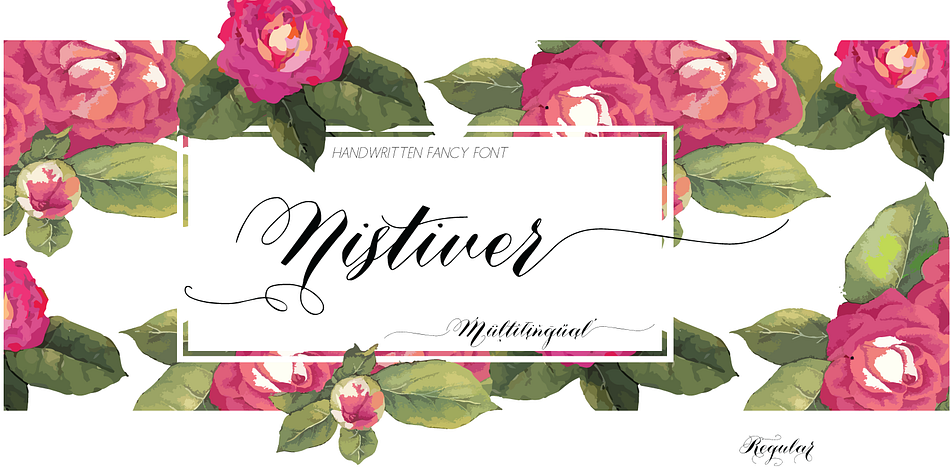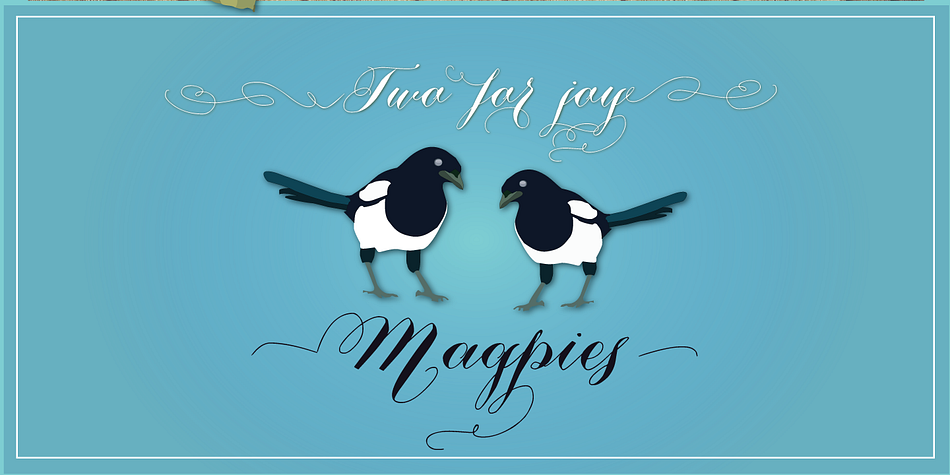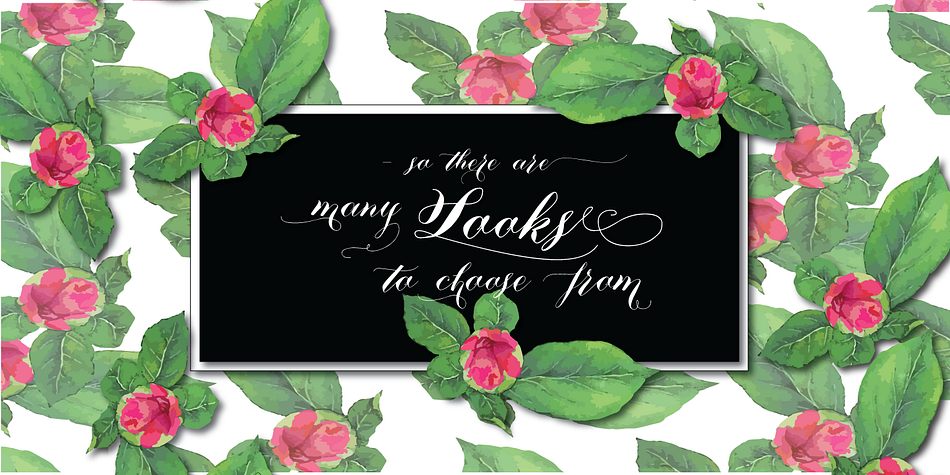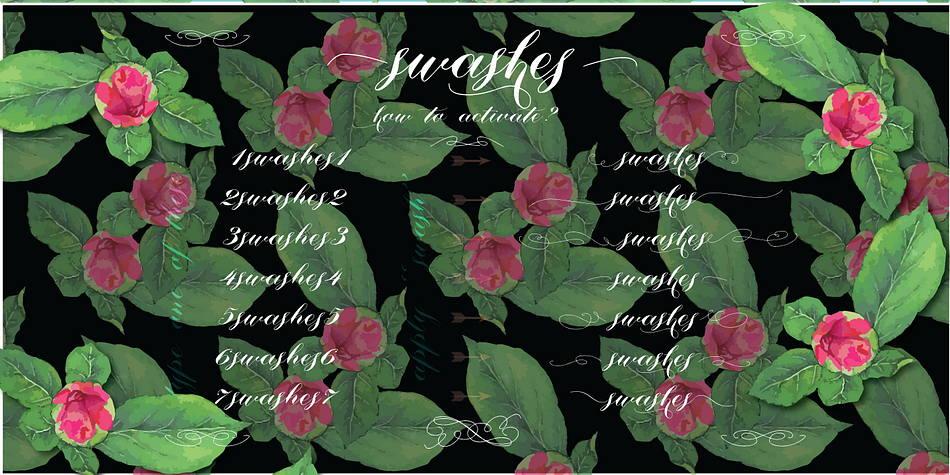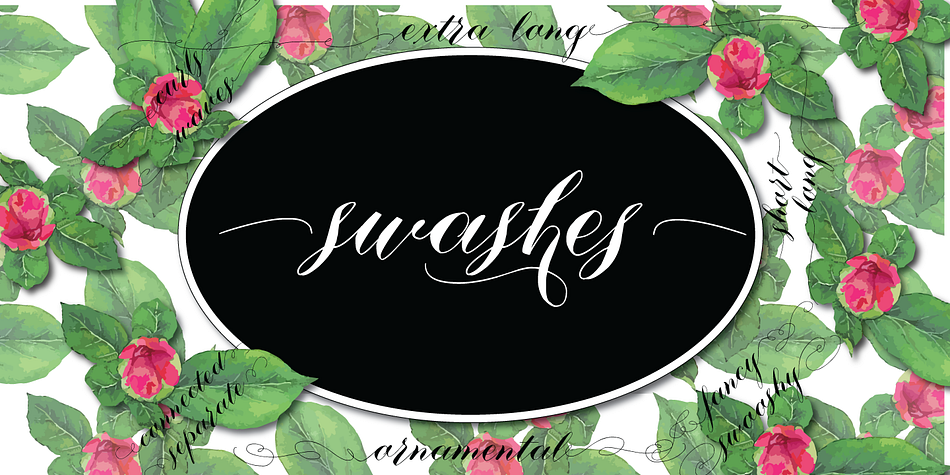
Nistiver is a script font family. This typeface has two styles and was published by Aga Silva Fonts.
Nistiver font is playful, is feminine, is packed with fancy swashy letters and swashes that can be put on the both ends of words - and above all swash comes in many shapes and forms. If that is not enough there are also available swashes to be placed at the top/bottom of the pages - and there are over 1400 glyphs in total to cater for that as well. Doesn’t matter if your language is other than English. You can still use this font - as Nistiver can be used for foreign writing (see the list of languages at the bottom of this page).
Suits texts where visual statement is required (ie. name in invitation, header etc.), and suits general writing as well as basic letters are legible and elegant.